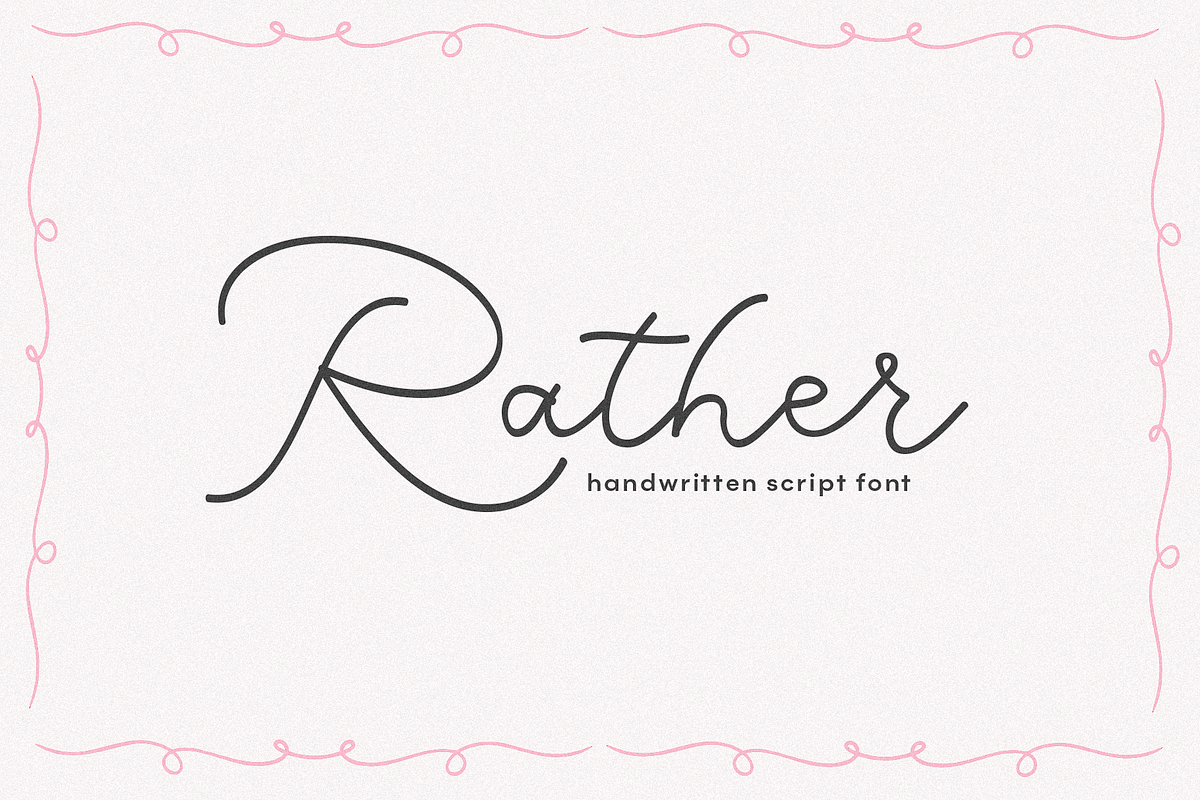
Rather Font Free Download is a stylish coquette script font that brings a blend of charm, elegance, and flirtatious flair to your designs. With its soft curves and flowing strokes, Rather is perfect for branding projects, wedding stationery, product packaging, social media visuals, and any design that calls for a romantic and modern script style.
With a graceful handwritten touch, Rather Font Free Download stands out in both feminine and upscale design contexts. Its well-balanced characters and fluid baseline make it incredibly versatile, whether used for headlines, logos, or signature-style text overlays.
Rather was designed for those who appreciate the beauty of fine lettering and the elegance of modern calligraphy. It pairs wonderfully with serif or sans-serif fonts, offering a beautiful contrast that elevates the overall aesthetic of any layout.